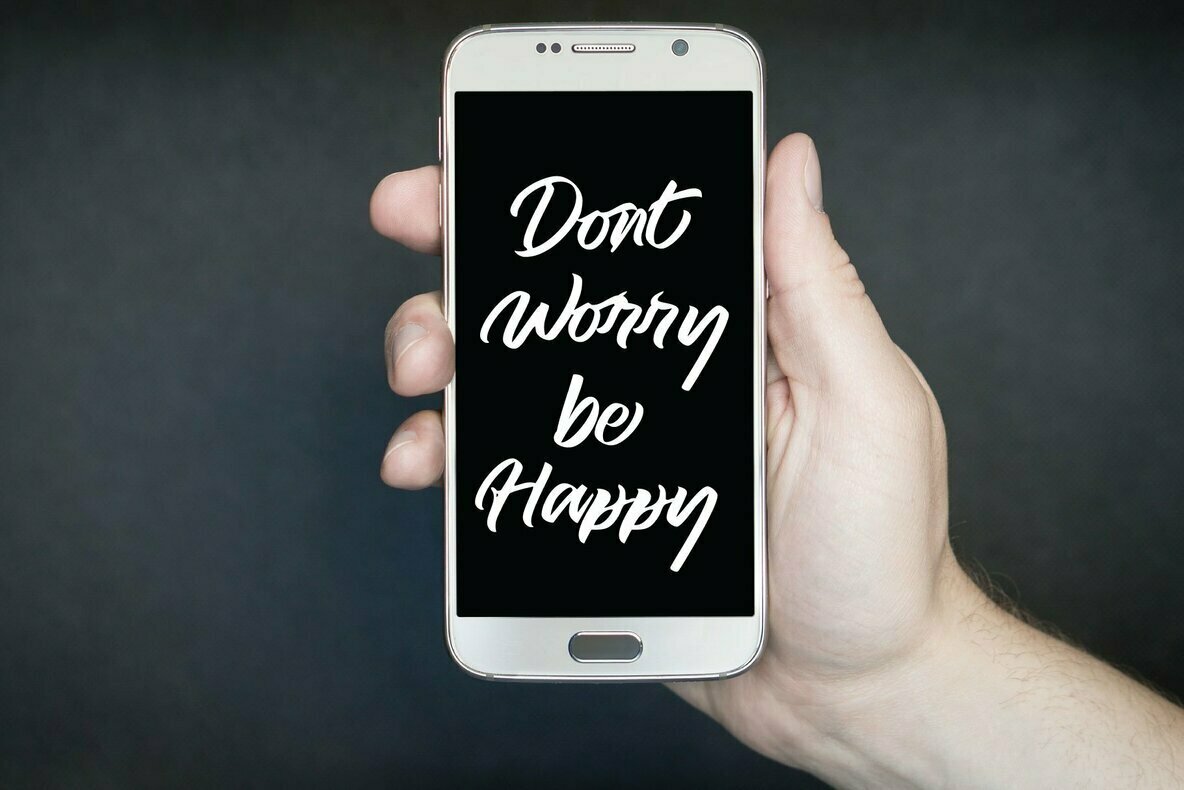
Royal Muffin Font
Royal Muffin
Royal Muffin stands out as a striking brush handwriting font, echoing the charm of authentic hand lettering. Drawing inspiration from traditional signboard artistry and street ads, it captures the essence of natural brushstrokes. This font lends itself seamlessly to logotype creation and various sign art projects, offering designers a tool that's both versatile and effortlessly stylish.Royal Muffin: Authentic Handwriting Brush Font